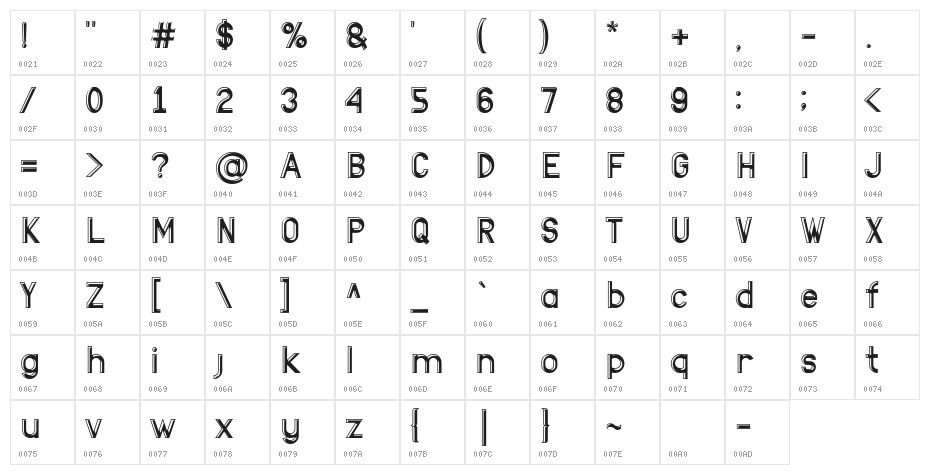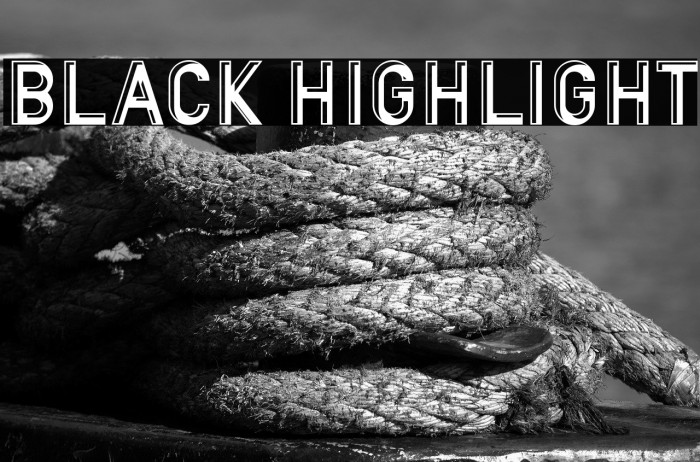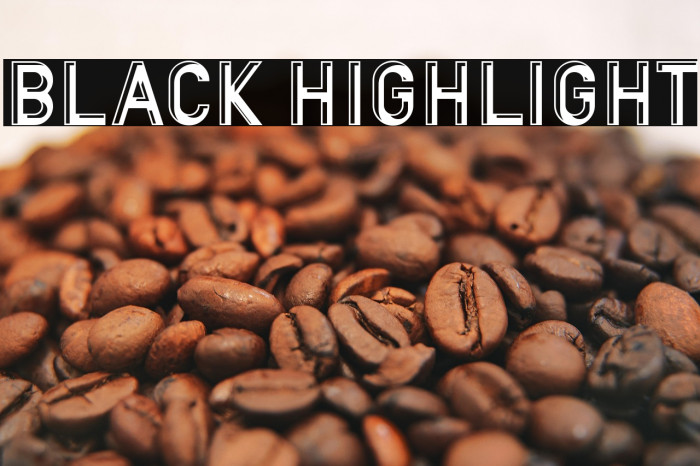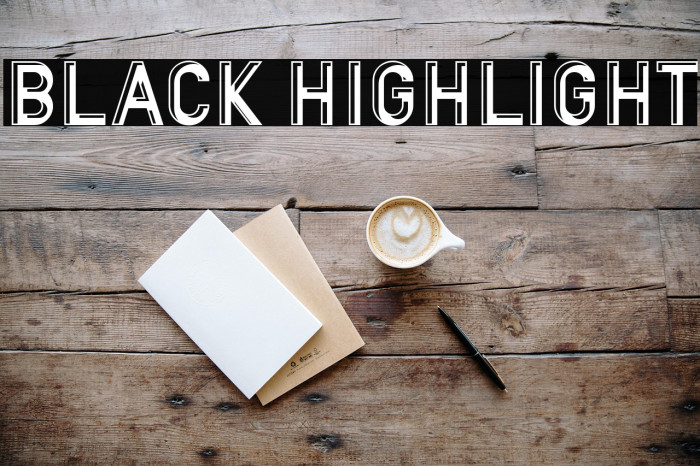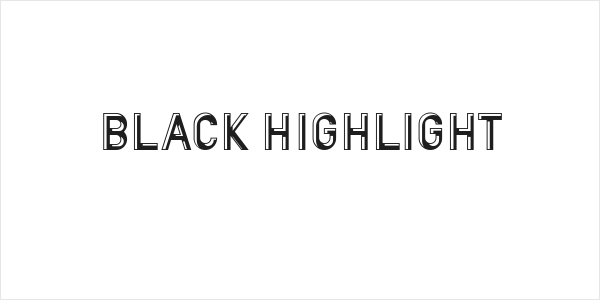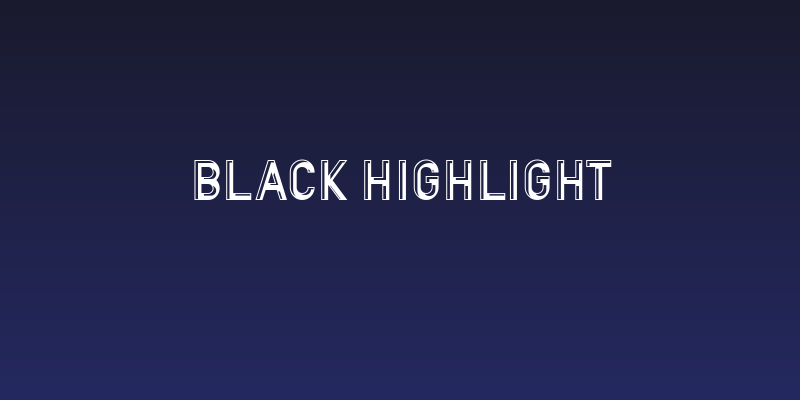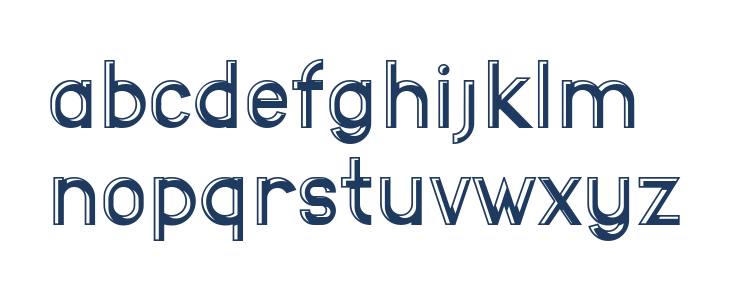
BLACK HIGHLIGHT Font
BLACK HIGHLIGHT Description
This font features a bold, geometric sans-serif style with a distinctive black highlight effect that gives each character a three-dimensional appearance. The uppercase and lowercase letters maintain a consistent width, creating a uniform and structured look. The numerals are clear and legible, matching the overall aesthetic of the alphabet. Special characters are included, each designed to complement the font's bold and modern style. The font's clean lines and sharp edges make it suitable for a variety of design applications.